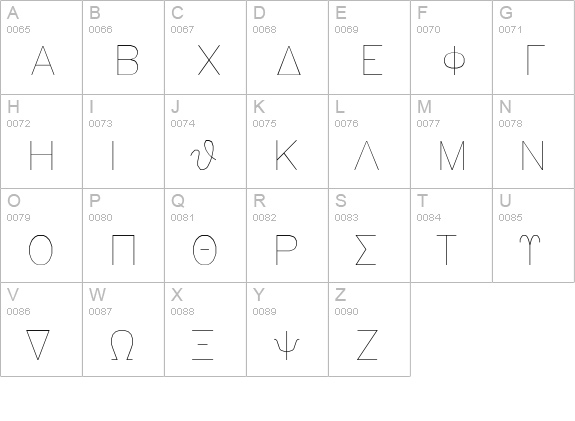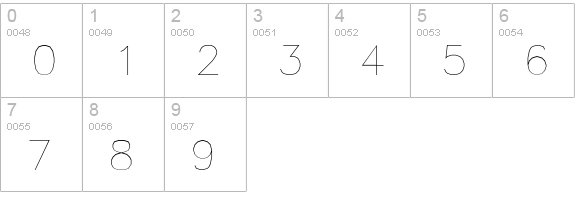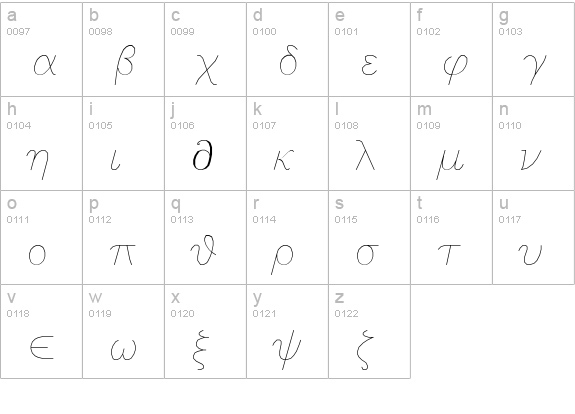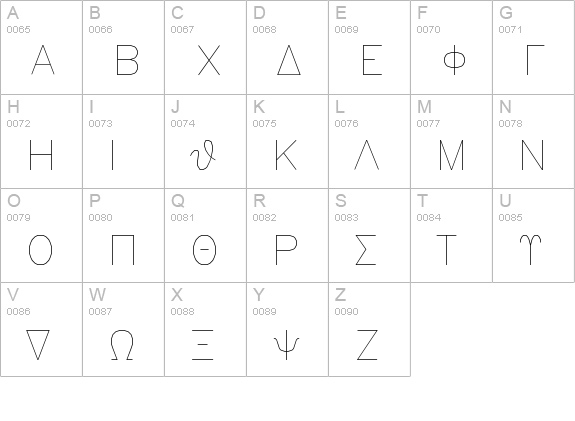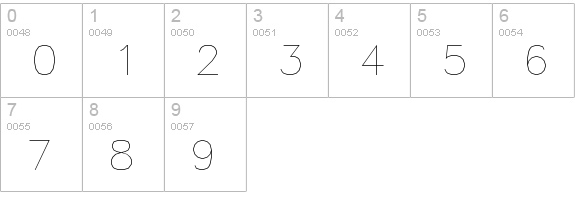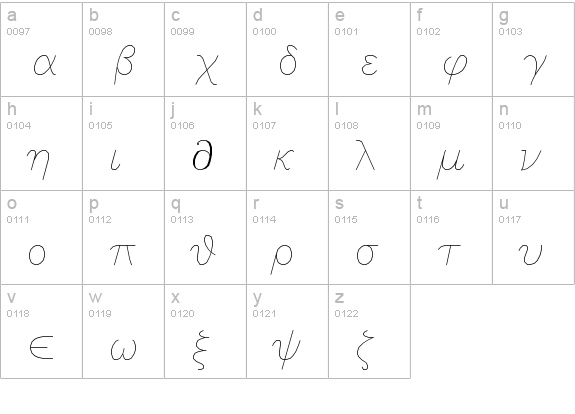
GreekS Font Details
Introducing GreekS font - a stunning typeface that embodies the elegance and timelessness of Greek typography. With its classic yet modern design, GreekS is the perfect choice for adding a touch of sophistication to your projects. This beautifully crafted font features intricate details and graceful curves, making it ideal for a wide range of design applications. Whether you're working on branding, editorial design, or any creative project, GreekS will surely make a lasting impression. What's even better is that GreekS font is completely free to download at FontsMarket.com. So, you can enhance your designs with this exceptional typeface without any cost. Don't miss out on this opportunity to elevate your work with the beauty of GreekS font.